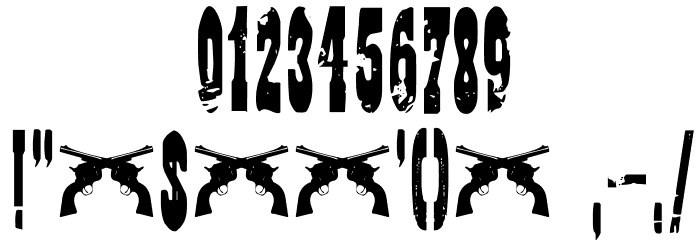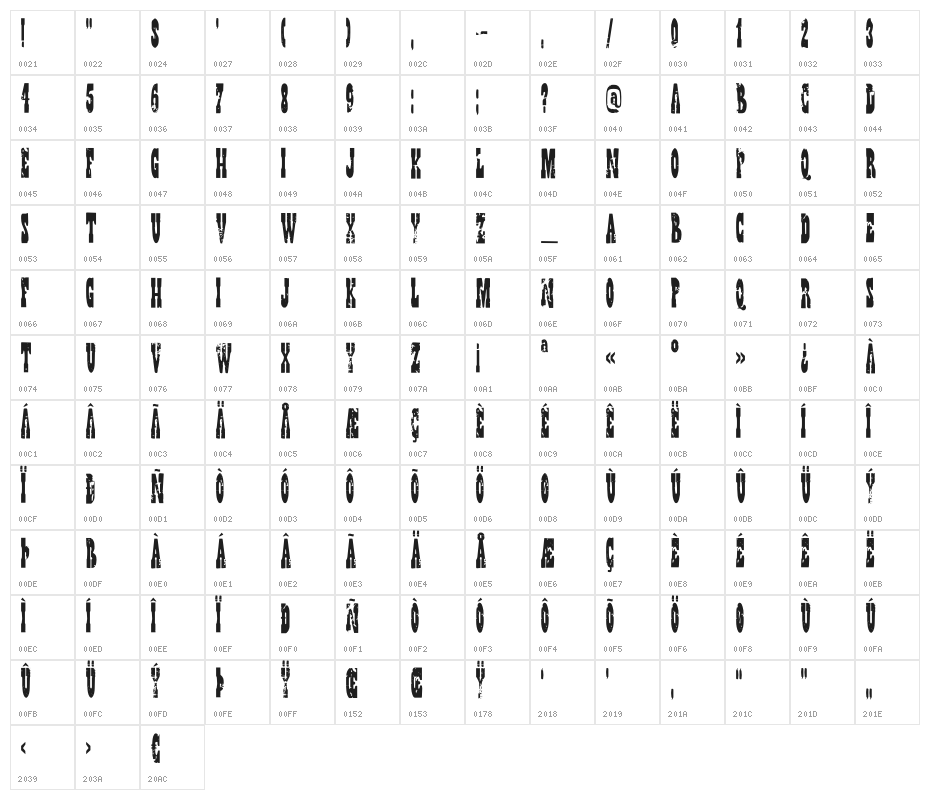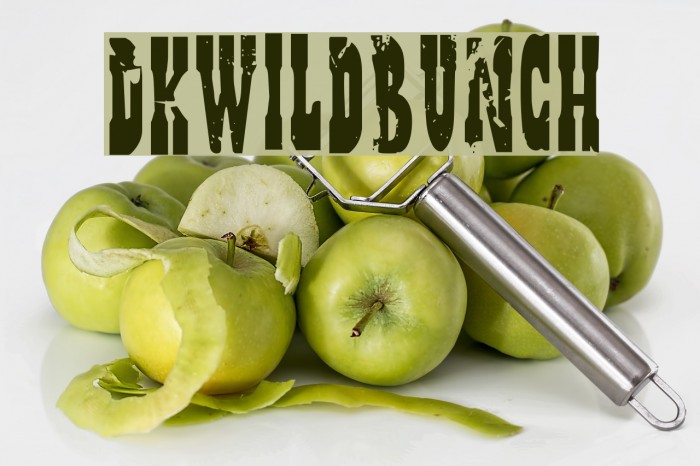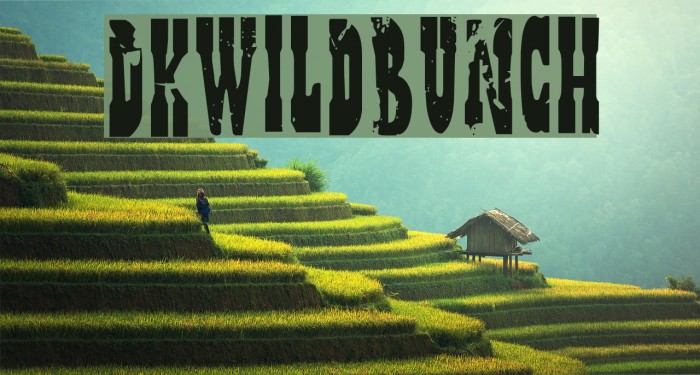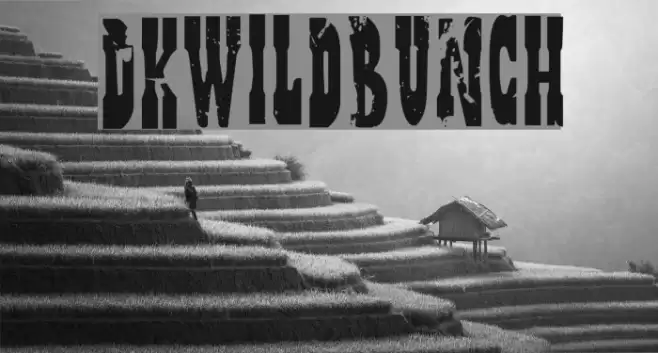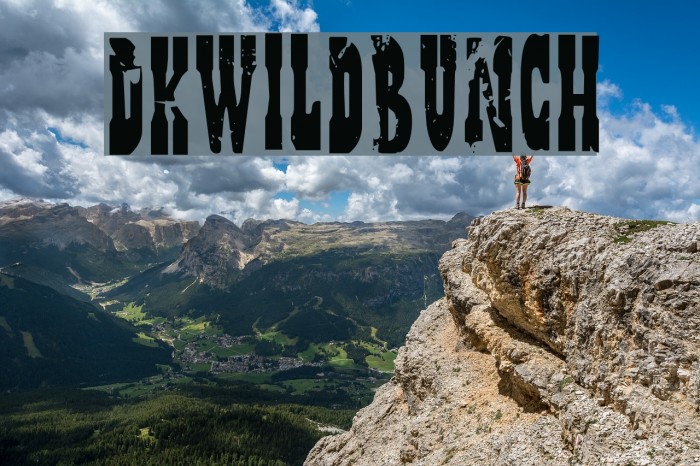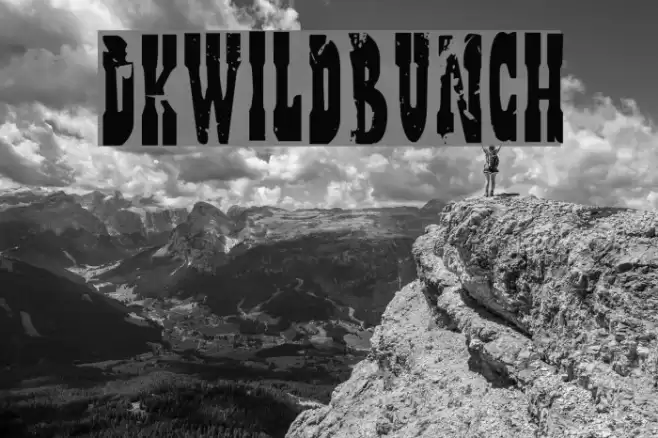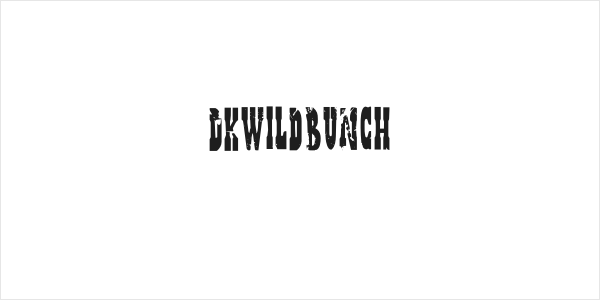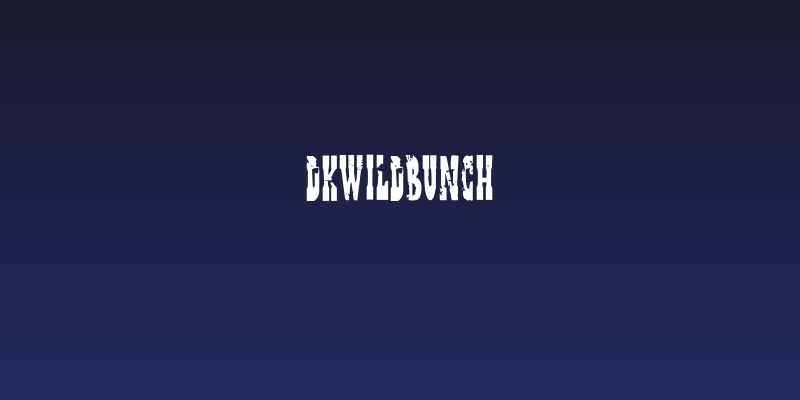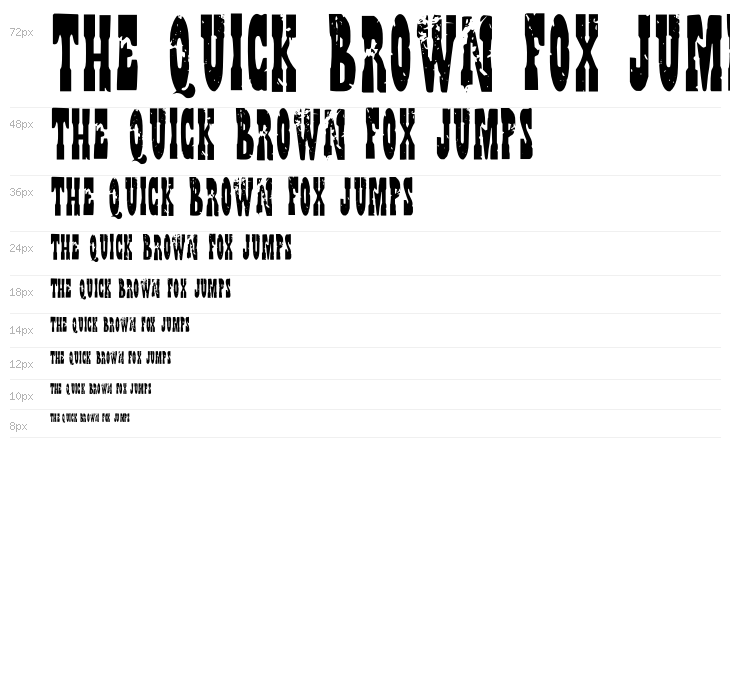
DKWildBunch Font
DKWildBunch Description
This font features a rugged, distressed style that evokes a sense of the Wild West. The characters are bold and heavily textured, giving them a weathered appearance. The uppercase and lowercase letters maintain a consistent design, with rough edges and a slightly uneven baseline, adding to the rustic charm. The numbers and special characters follow the same aesthetic, ensuring a cohesive look across all text elements. This font is ideal for projects that require a vintage or western theme, such as posters, signage, or themed event materials.
| Proposed Projects | Perfect for vintage-themed posters, western-style signage, or event branding. |